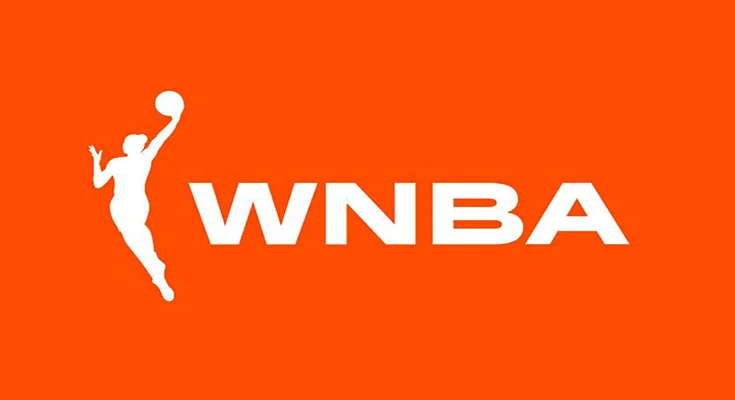
Introducing WNBA Logo Font! WNBA is the abbreviation of the Women’s National Basketball Association, a professional basketball league in the United States.
The time of its emergence is April 24, 1996. The sports organization opened its first season in 1997. Its logo has expression and movement, indicating an active sport.
The font used for the logo of WNBA is Cyclone, a compact inline sans serif typeface. It was designed by Jonathan Hoefler and published by Hoefler & Co.
This display typeface is ideal for multiple works. For example, you can lay out a great movie poster, special cards, e-book cover, material printing, headline enhancement, cosmetic printing, and every other place you discover it best.